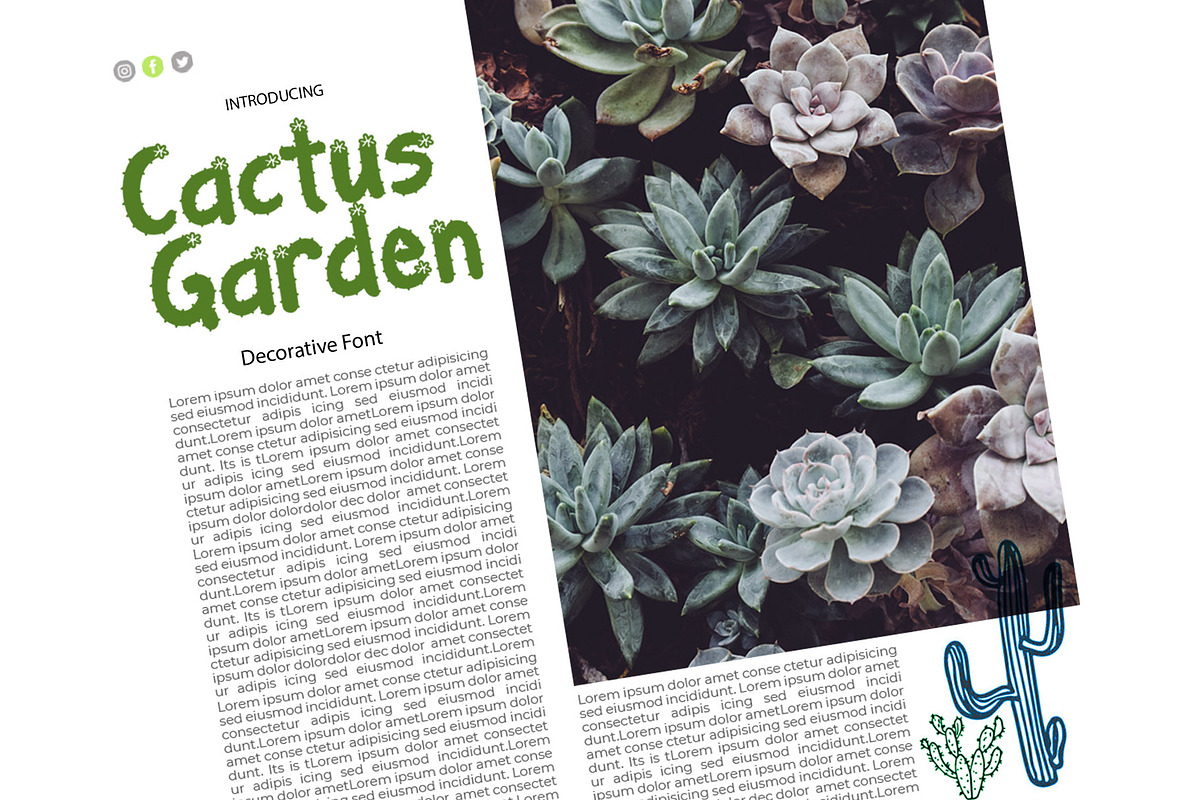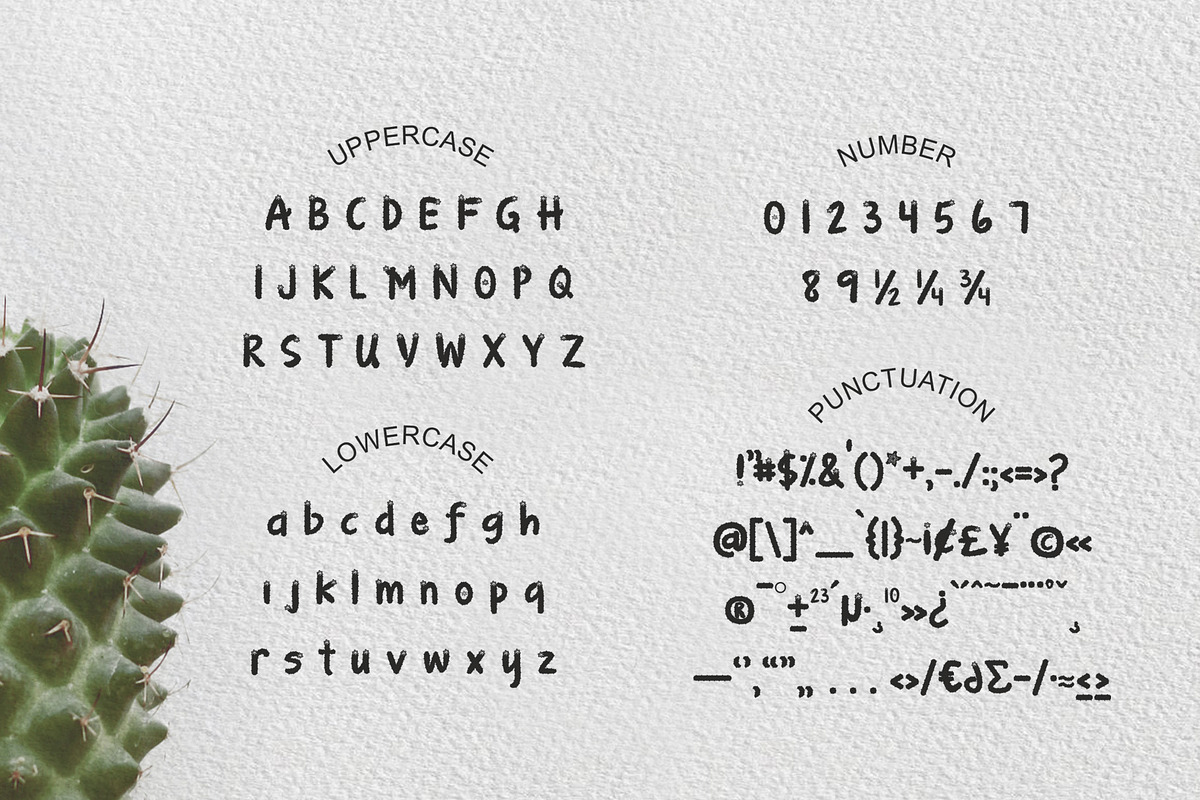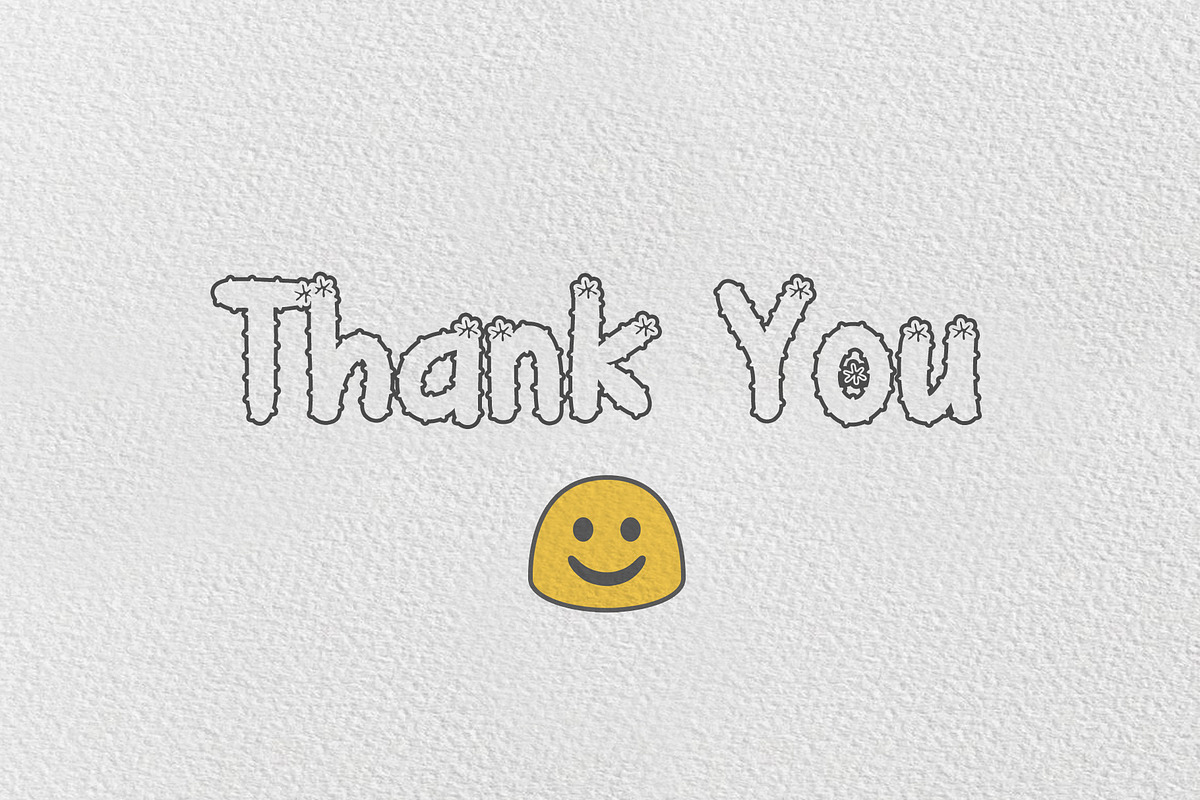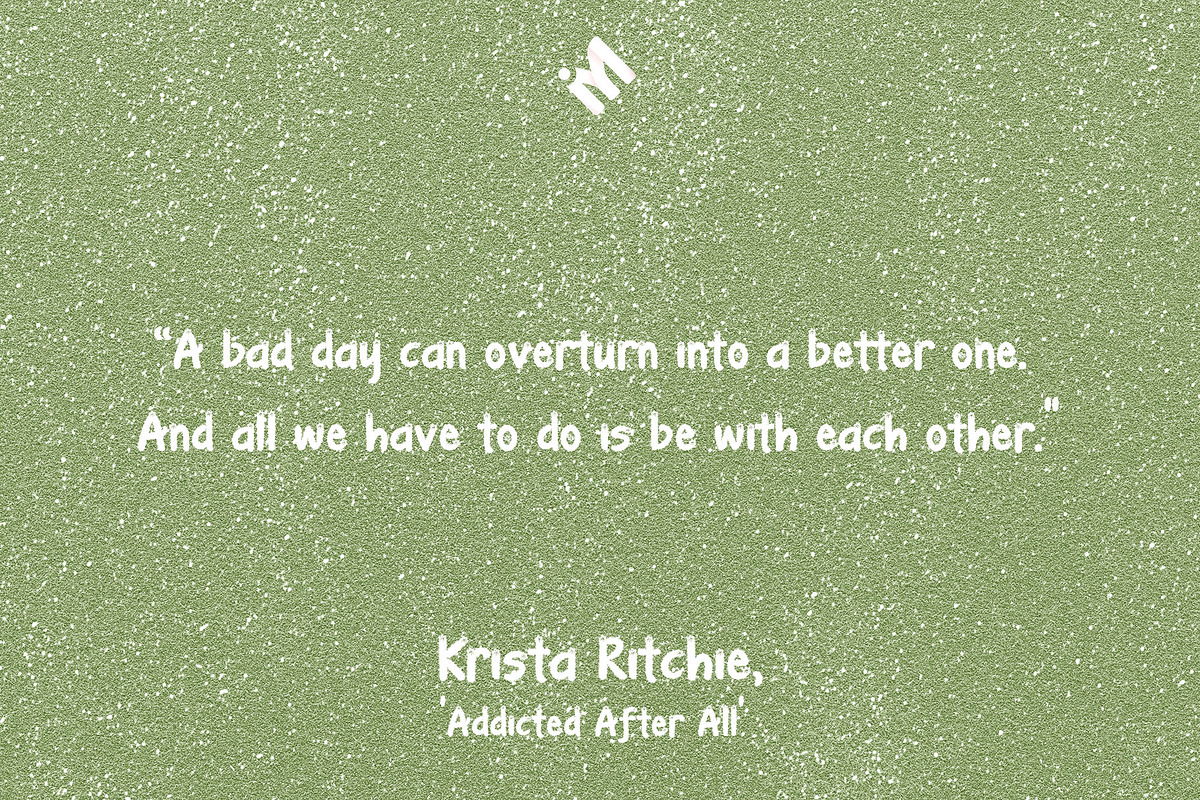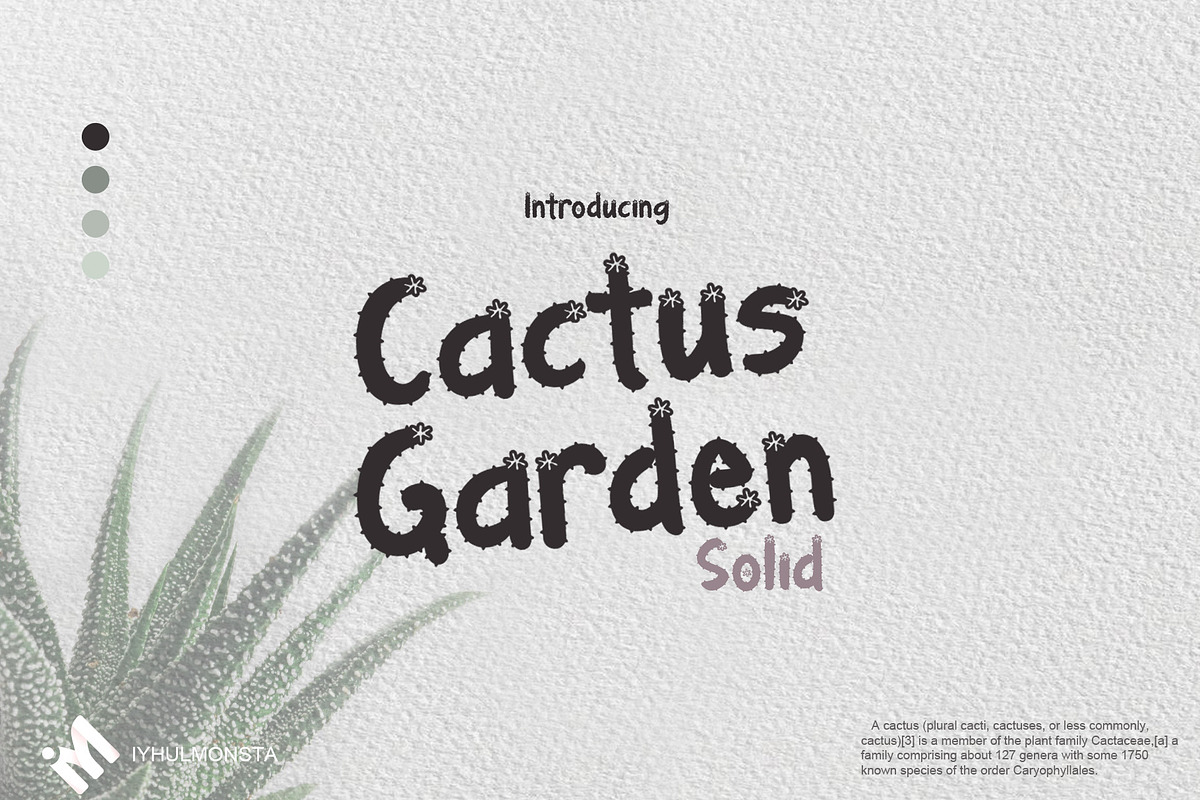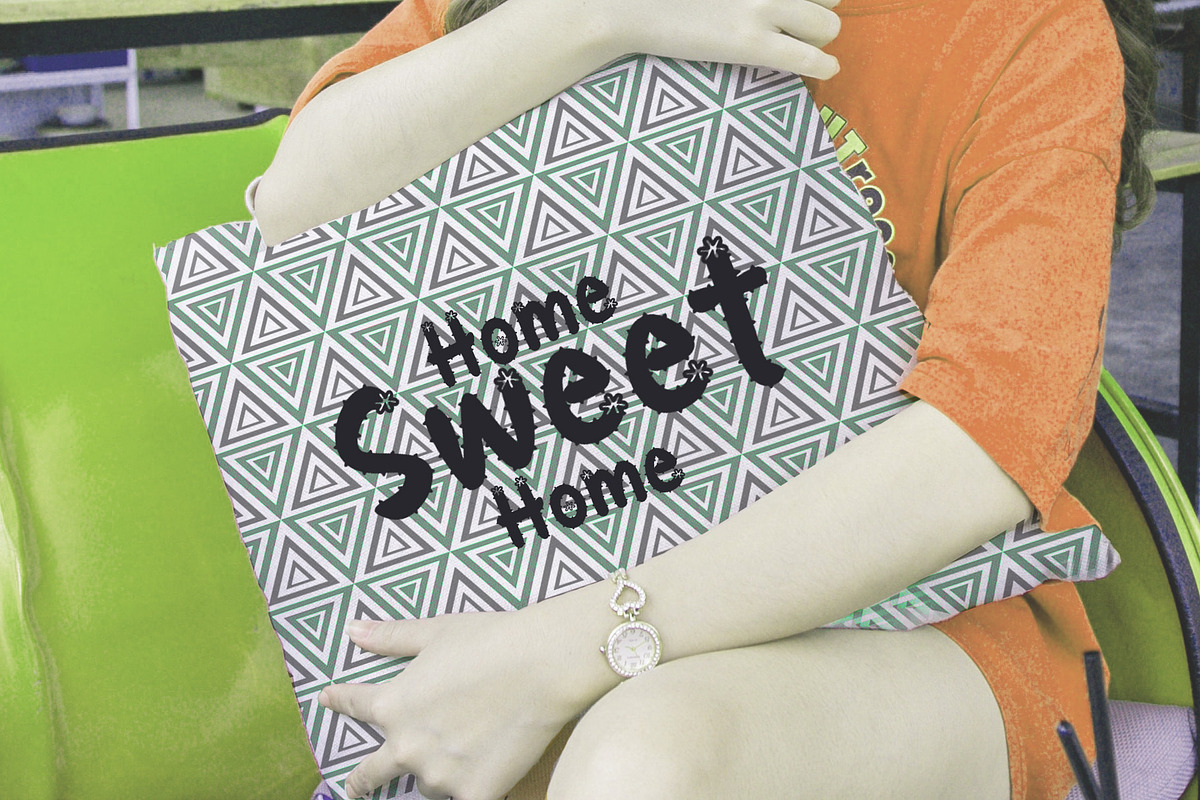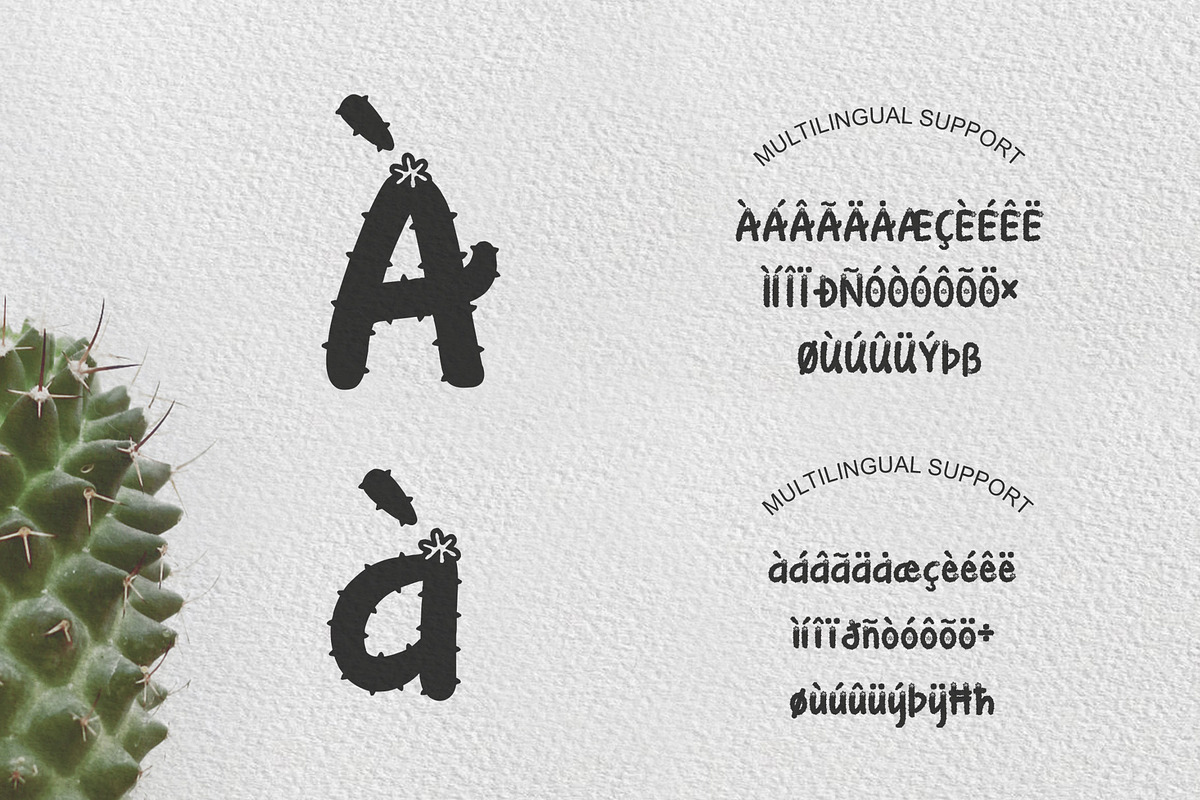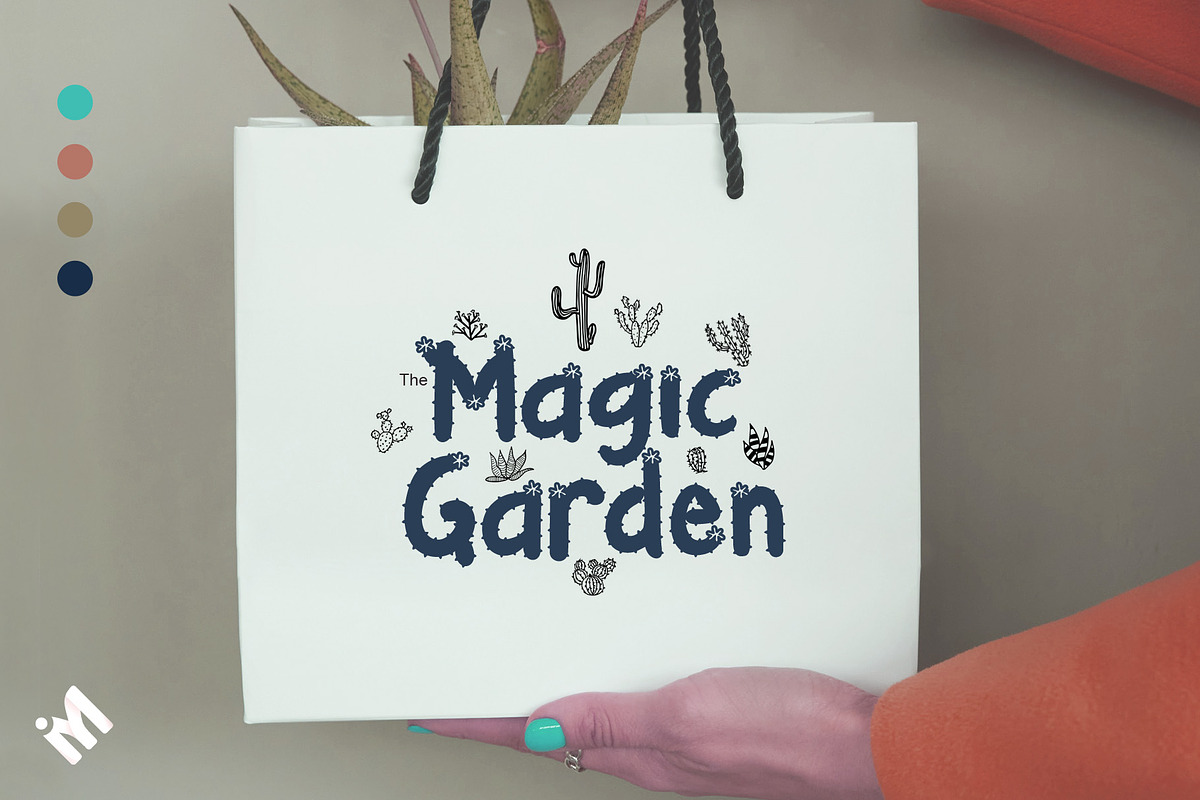
Cactus Garden Solid
Cactus Garden Solid is a funny decorative font that will fill your designs with cheerfulness! Perfect for use on: Branding and/or logomarks Merchandise Apparel Packaging Stationery or invitations Social media and anything that needs to pop!. Cactus Garden Solid Features : Cactus Garden Solid : OTF & TTF,Web Font (WOFF) ,Accented Glyphs Ready with Uppercase and Lowercase characters Multiple Languages Supported and Punctuation.